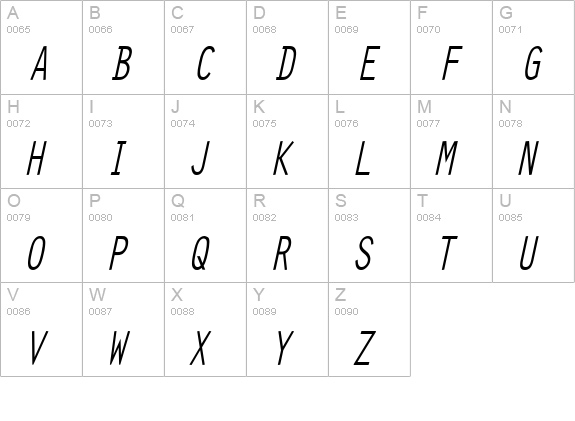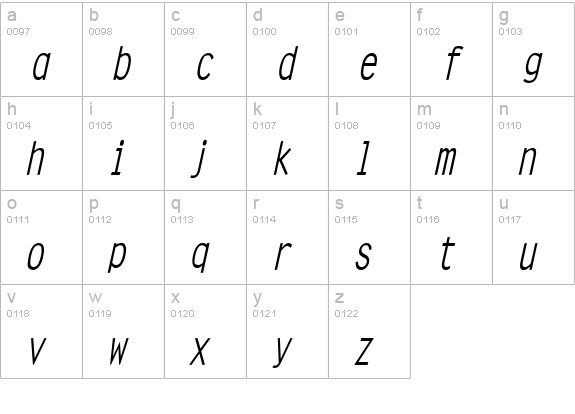
Clean Condensed Italic Font Details
Clean Condensed Italic is a distinctive, condensed-width, italic variant in the Clean typeface family \xE2\x80\x94 well suited to design and typography projects.
The Clean Condensed Italic font is a sleek and modern typeface that exudes sophistication and elegance. Its clean lines and condensed design make it perfect for conveying a sense of professionalism and style in any project. The italic style adds a touch of flair and sophistication, making it ideal for use in branding, advertising, and editorial design. This versatile font is not only visually appealing but also highly readable, making it suitable for a wide range of applications. Whether you are designing a website, creating a logo, or working on a print project, the Clean Condensed Italic font will help you achieve a polished and refined look. Best of all, this font is completely free to download at FontsMarket.com. So you can elevate your designs without breaking the bank. Don't miss out on this fantastic opportunity to enhance your projects with the Clean Condensed Italic font!